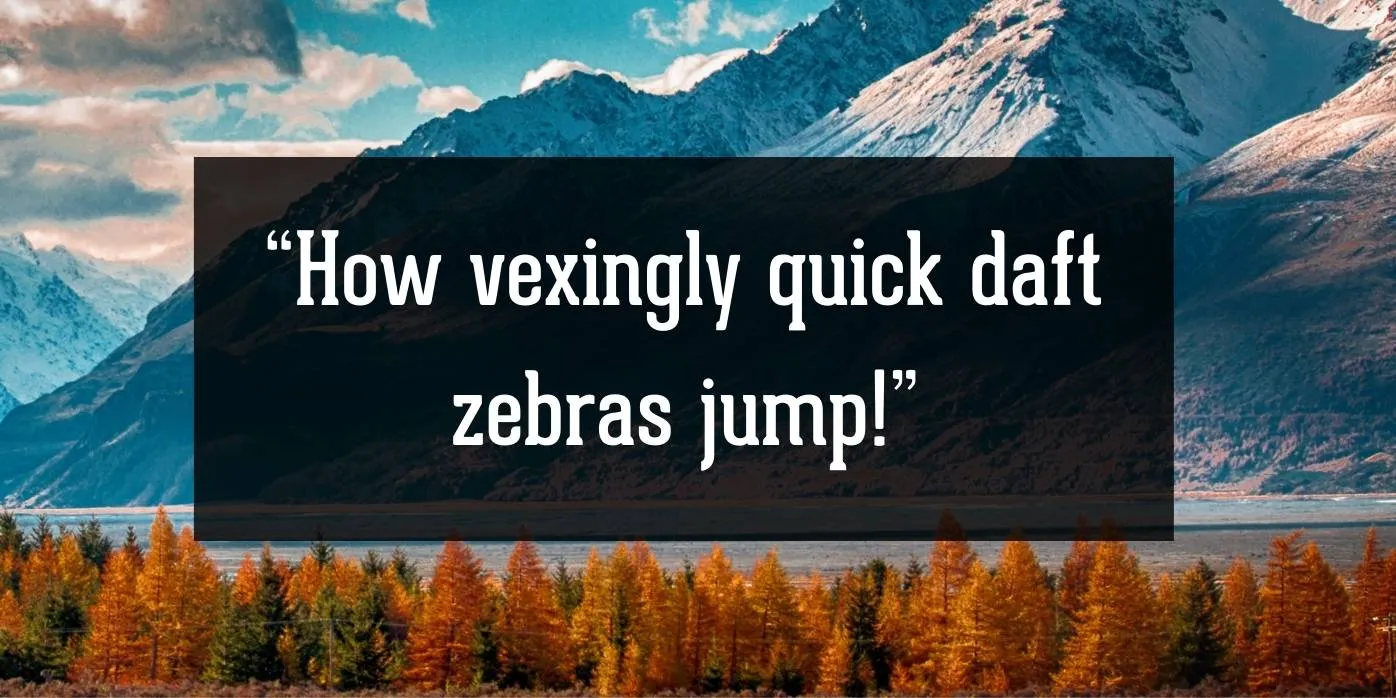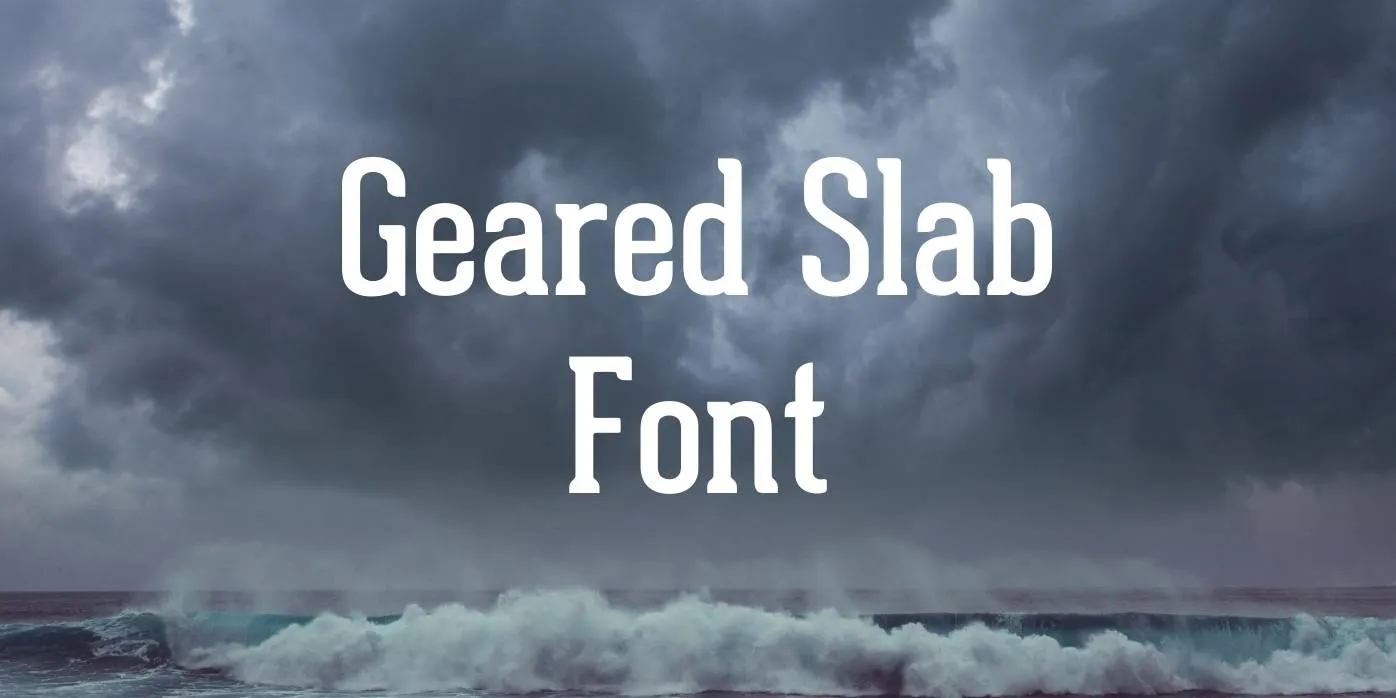
Geared Slab Font
Here, we present a new marvelous typeface named Geared Slab Font. This stunning typeface belongs to the Slab Serif font family. The main designer of this typeface was Mr. Ben Dalrymple.
This amazing font has come in three different styles including Regular, Rounded, and Inline. All of these styles contain TrueType features. Each style comprises up to 256 glyphs as well as 1000 units per em. This bold feature font is very famous.
It is not included in google fonts. You can also use its similar caecilia font for various plans. This great typeface supports almost all international languages including Latin, Cyrillic, and Greek alphabets. With its unique texture, Geared Slab Typeface can be used for both personal and commercial purposes.